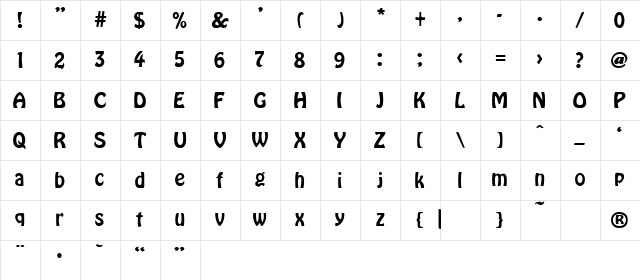
NewYorkOld Normal Free Font
Design Context for NewYorkOld
NewYorkOld is a composed and adaptable typeface that performs quietly and consistently across a wide range of design contexts.